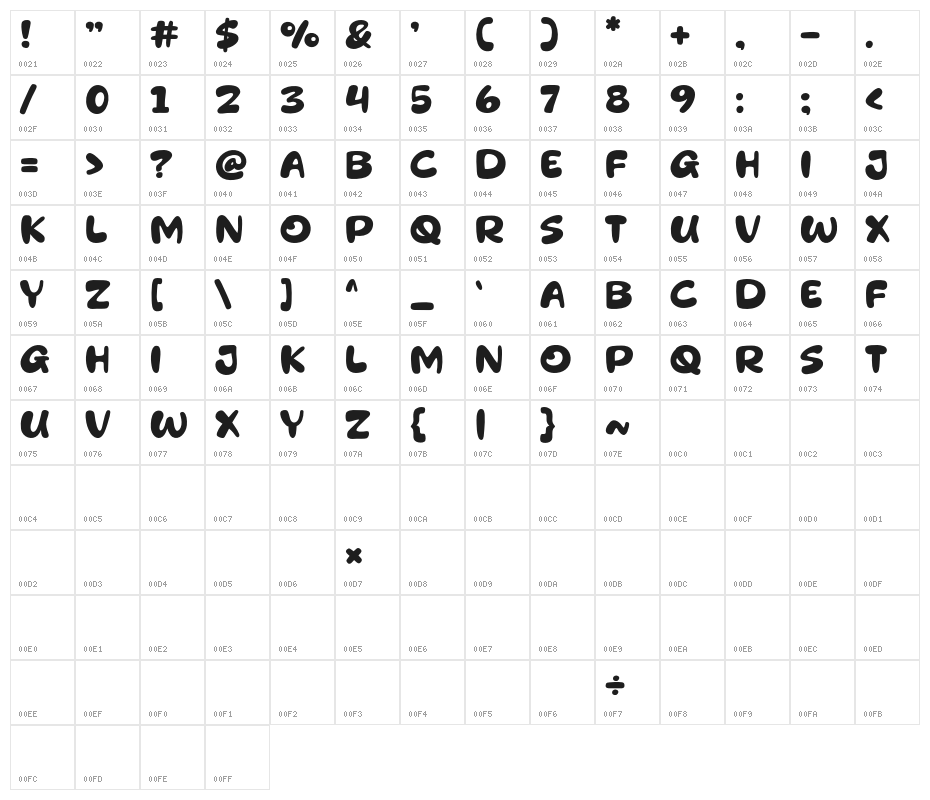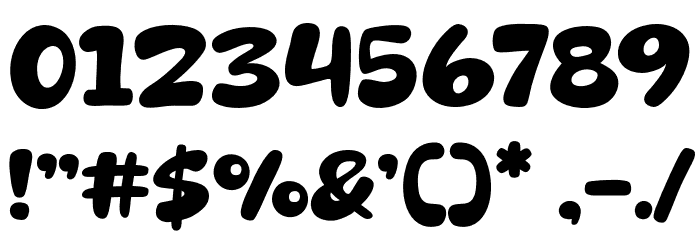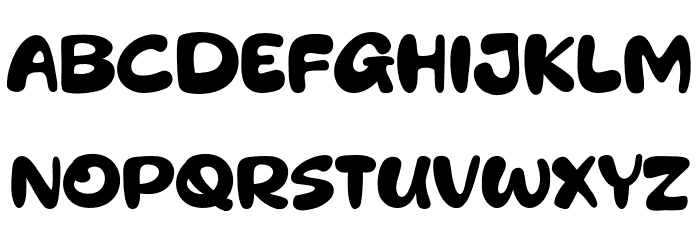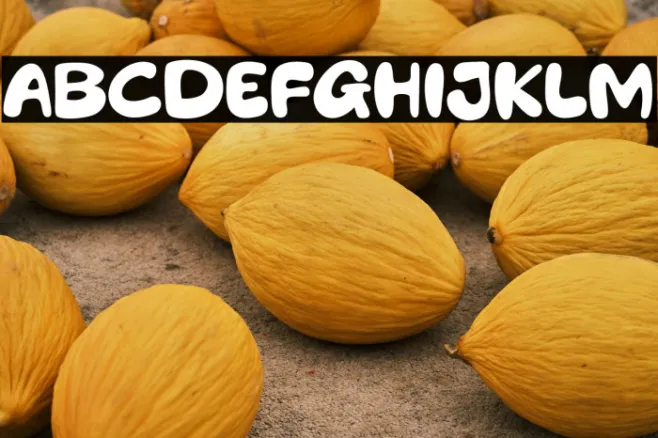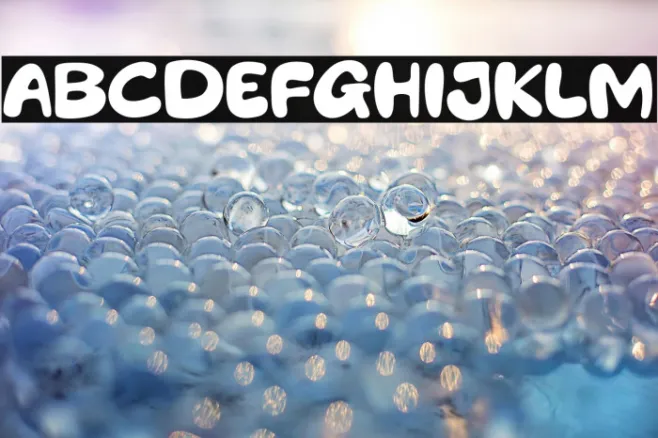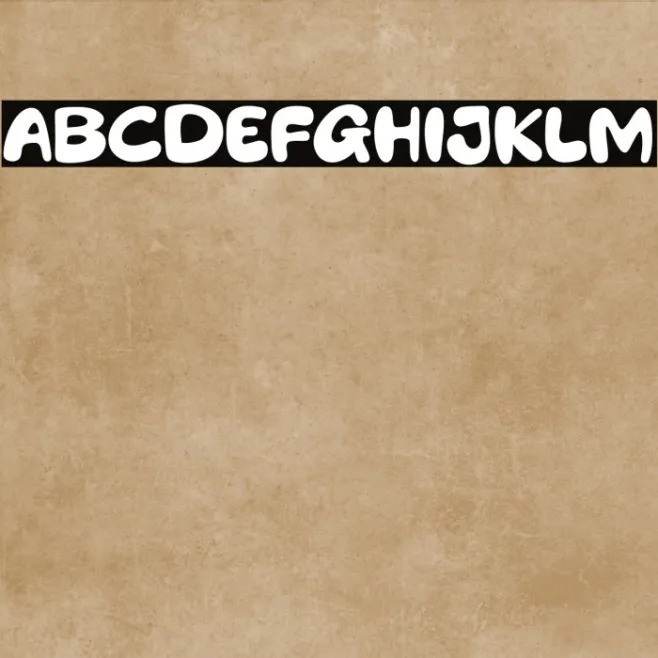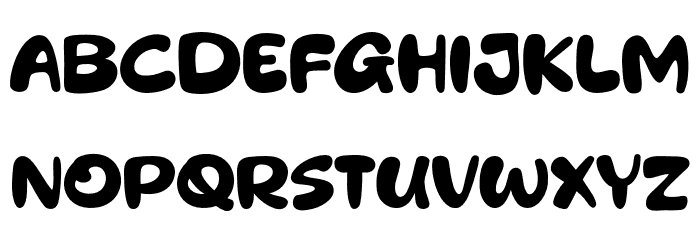
Sombong Amat Font
Sombong Amat Description
This font features a playful and bold design with rounded edges and a bubbly appearance. The characters are thick and have a consistent weight throughout, giving them a strong presence on the page. The rounded forms and smooth curves create a friendly and approachable look, making it suitable for casual and fun applications. The spacing between characters is tight, which enhances the compact and cohesive feel of the text. The font maintains a uniform stroke width, resulting in low contrast, and its overall style is modern and decorative.
| Proposed Projects | Ideal for children's books, playful branding, party invitations, and casual social media graphics. |